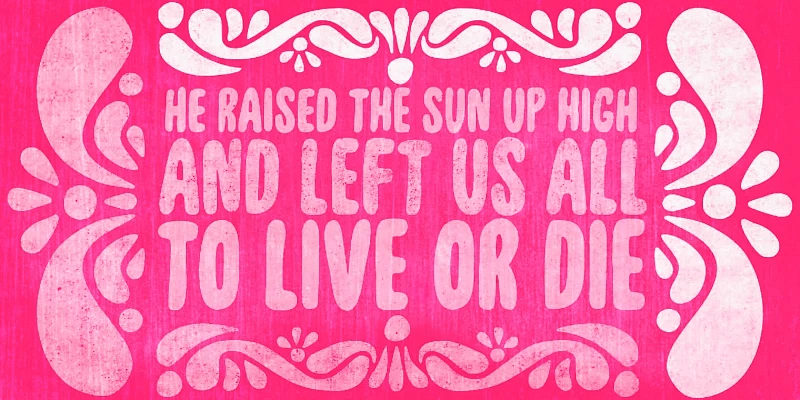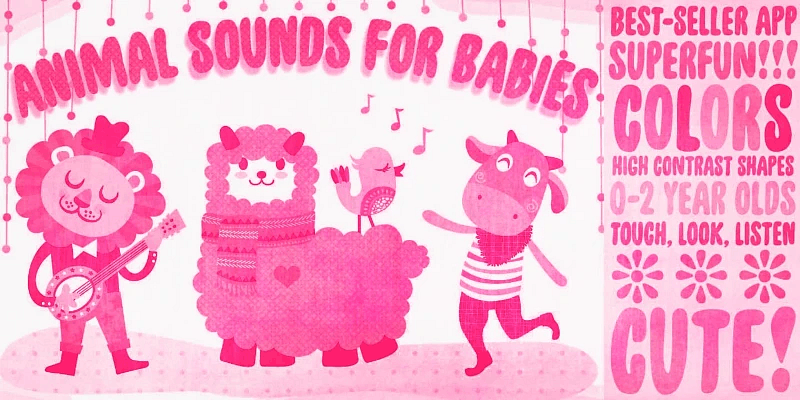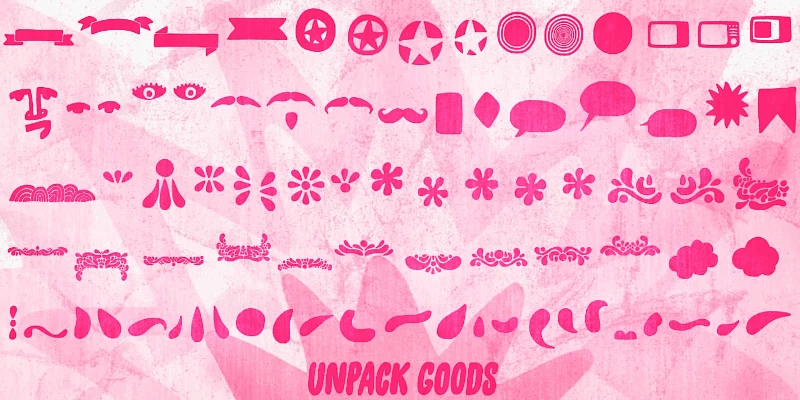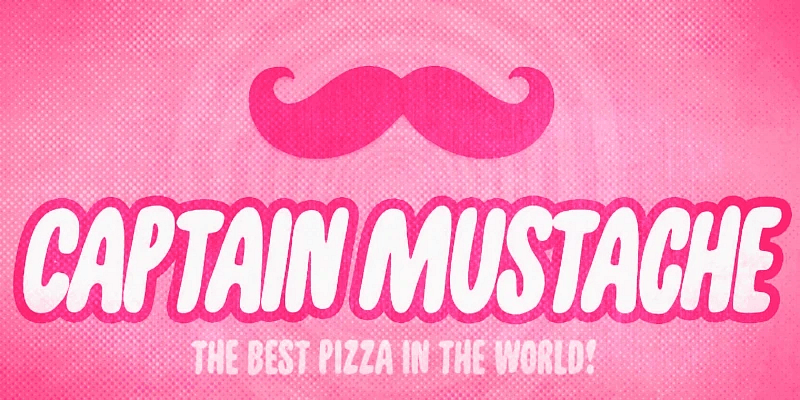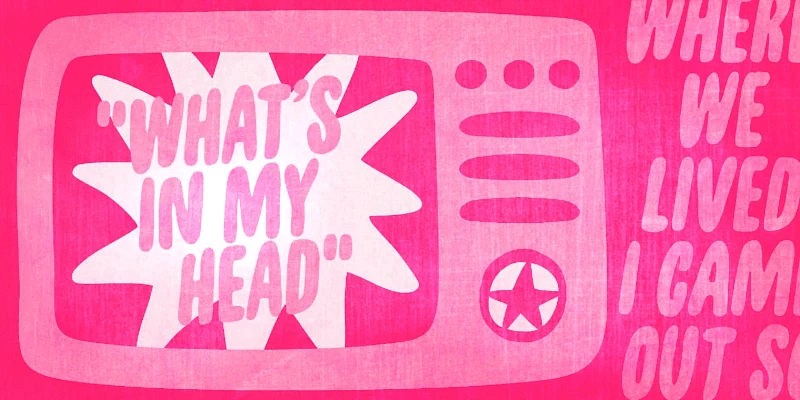
Unpack is an invitingly soft condensed sans serif. It is available in two cuts, upright and slanted, both all-caps, with 2 options for each letter for an organically uneven look. The family also has a picture font, loaded with some handy extras like banners, stars, and ornaments. This versatile family suits a wide range of projects. Food packaging, kids books, theatrical posters, album covers, and more! Don’t believe it? You don’t even need to unpack it to try!